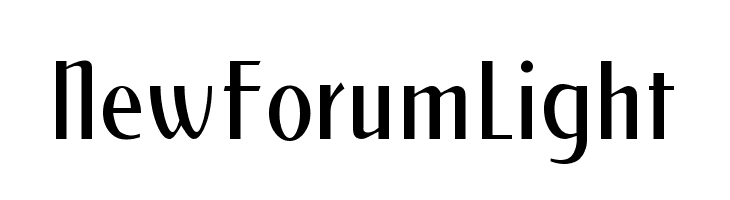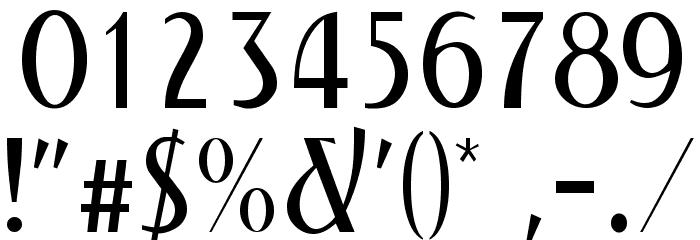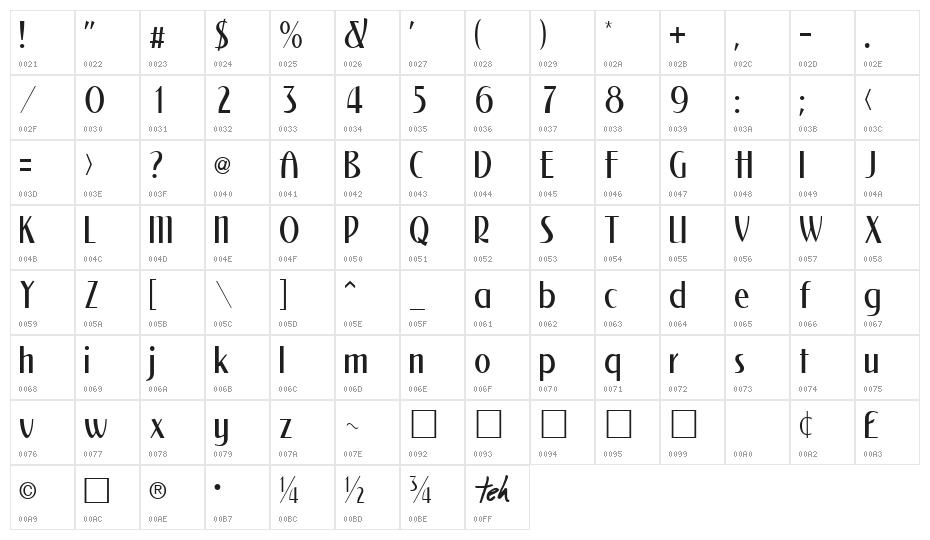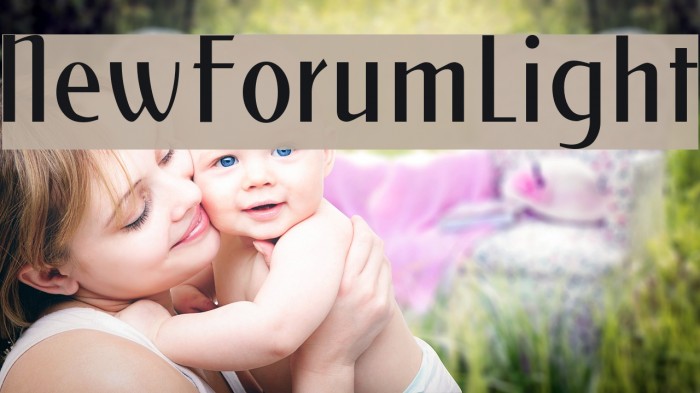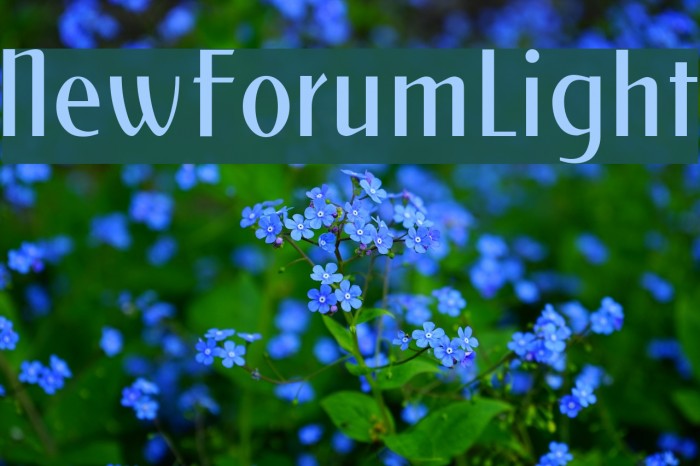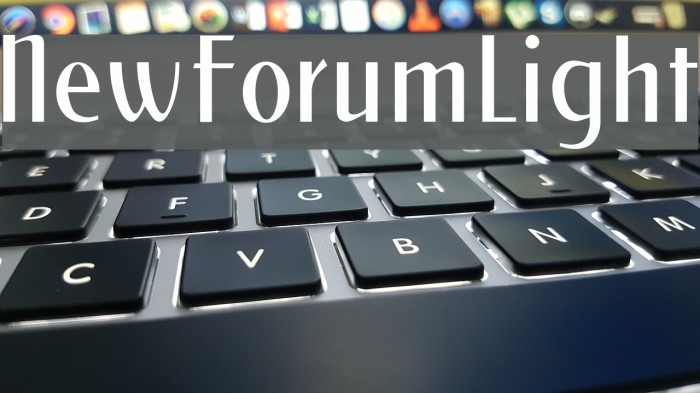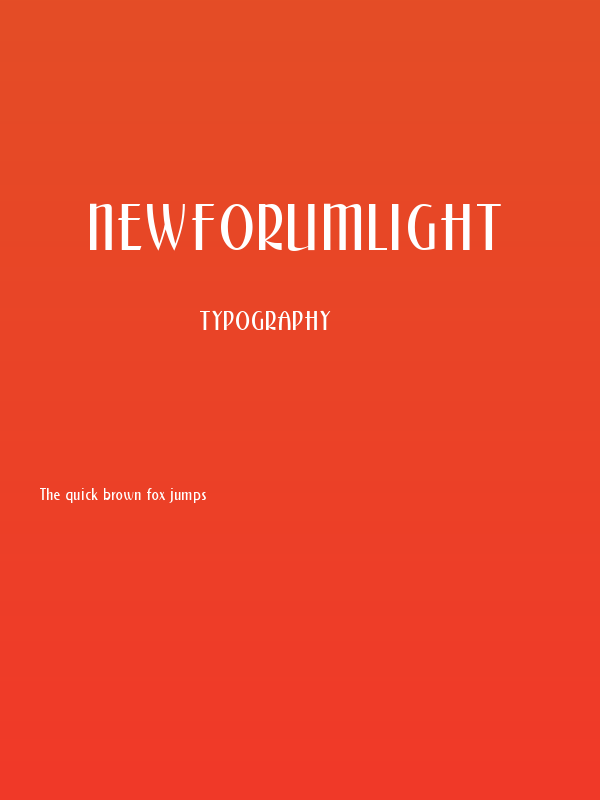
NewForumLight Font
NewForumLight Description
This font features a modern and elegant design with a distinct art deco influence. The characters are tall and slightly condensed, with a high contrast between thick and thin strokes, giving it a sophisticated and stylish appearance. The uppercase letters have a unique flair with curved and angular elements, while the lowercase letters maintain a smooth and flowing form. The numerals are bold and easily readable, complementing the overall aesthetic. Special characters are designed with the same attention to detail, ensuring consistency across the font.